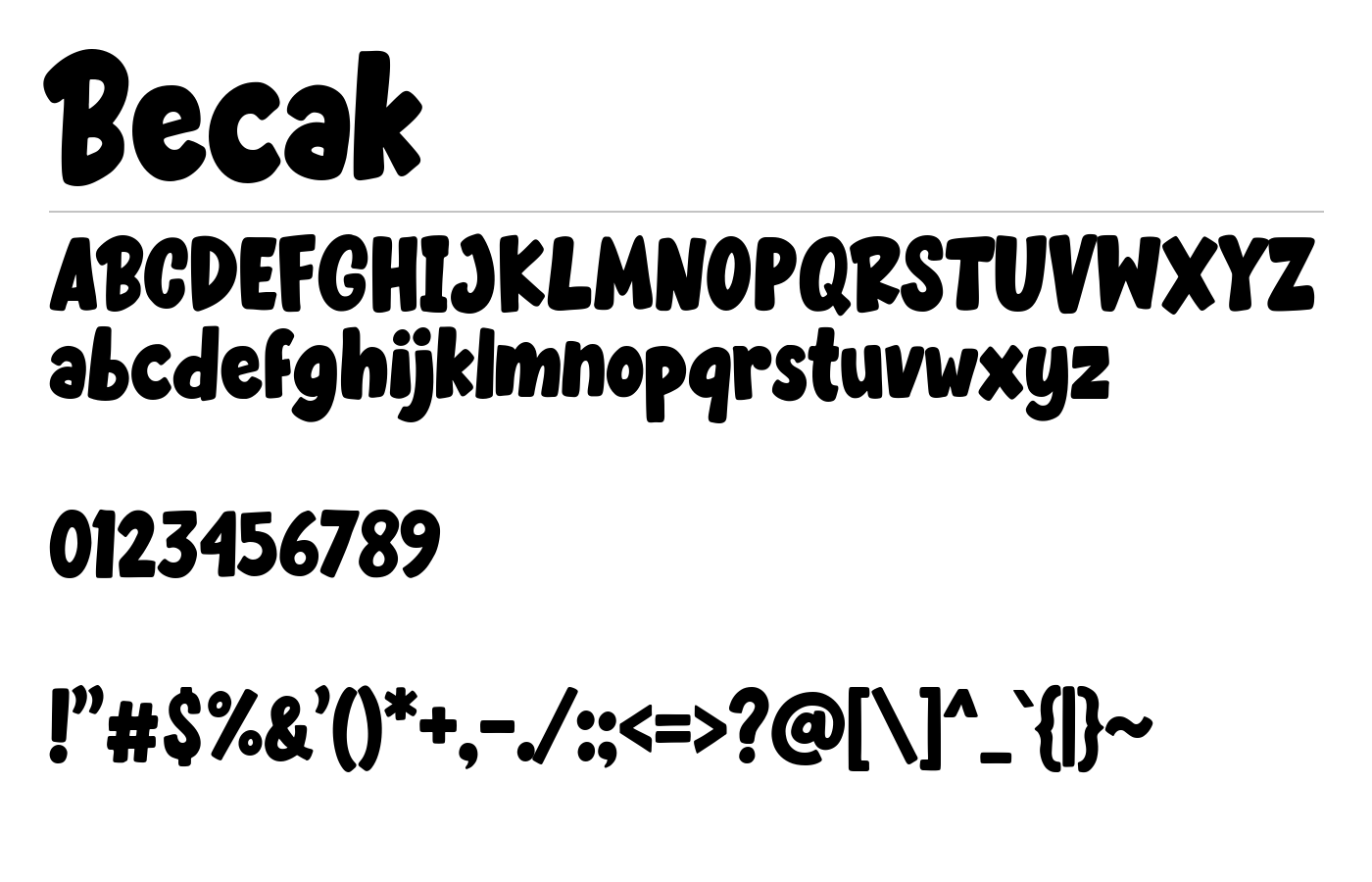
Becak is a bold, playful sans serif font with rounded edges and a chunky, friendly feel. It features a warm, informal style perfect for casual branding, children's designs, and fun headlines where an approachable, energetic vibe is desired. Its strong presence and clear readability make it ideal for posters, logos, and lively editorial projects.
Becak Font
About Becak Font
| Font family | Becak Font |
| Designer | Wahyu Andi Prasetiyo |